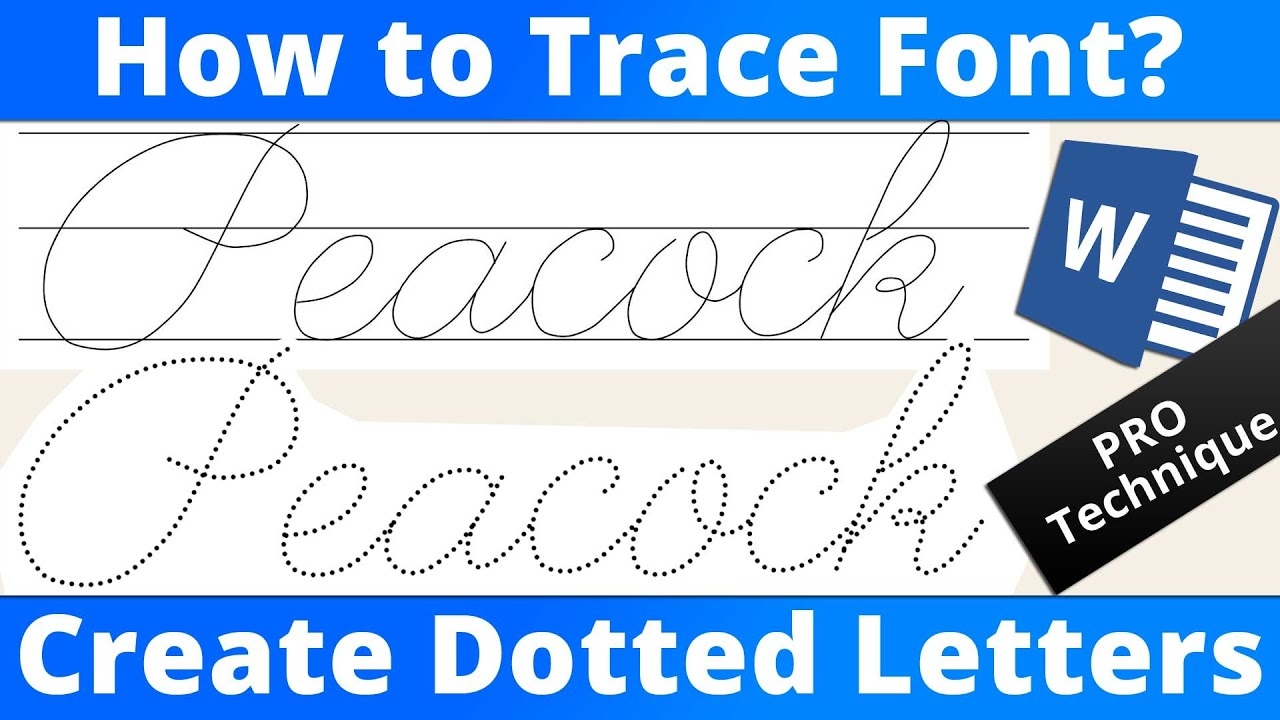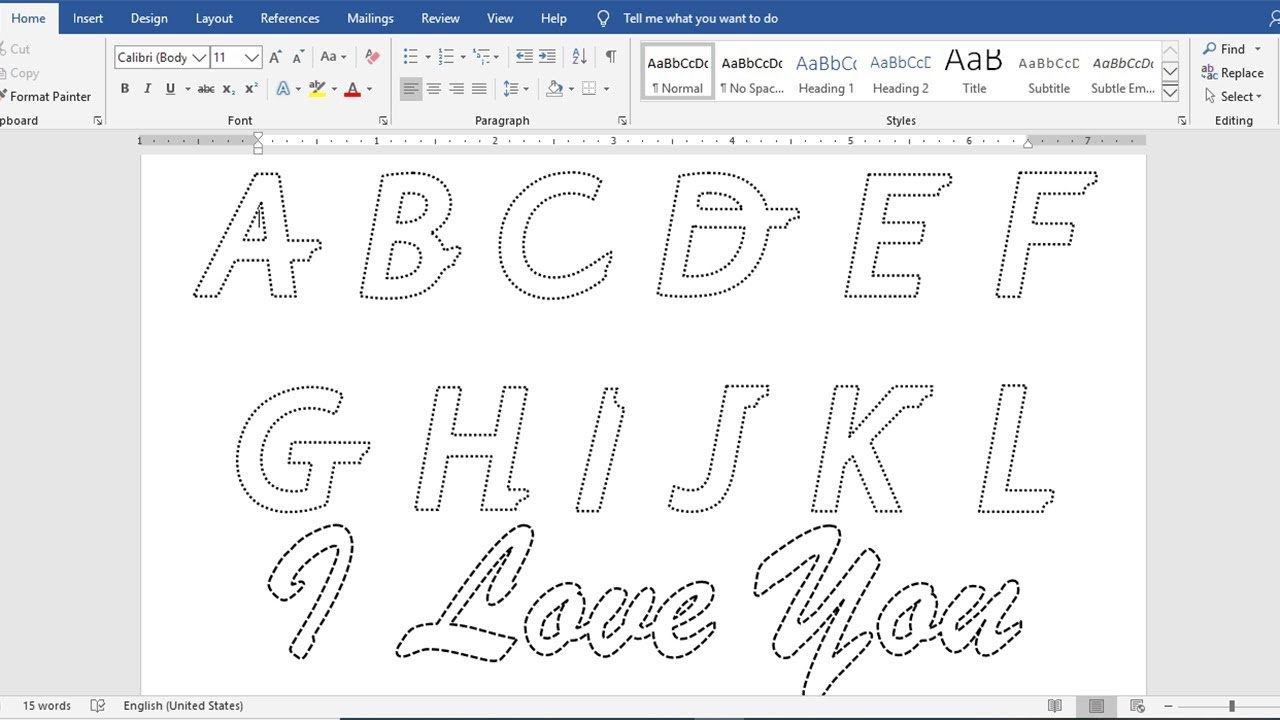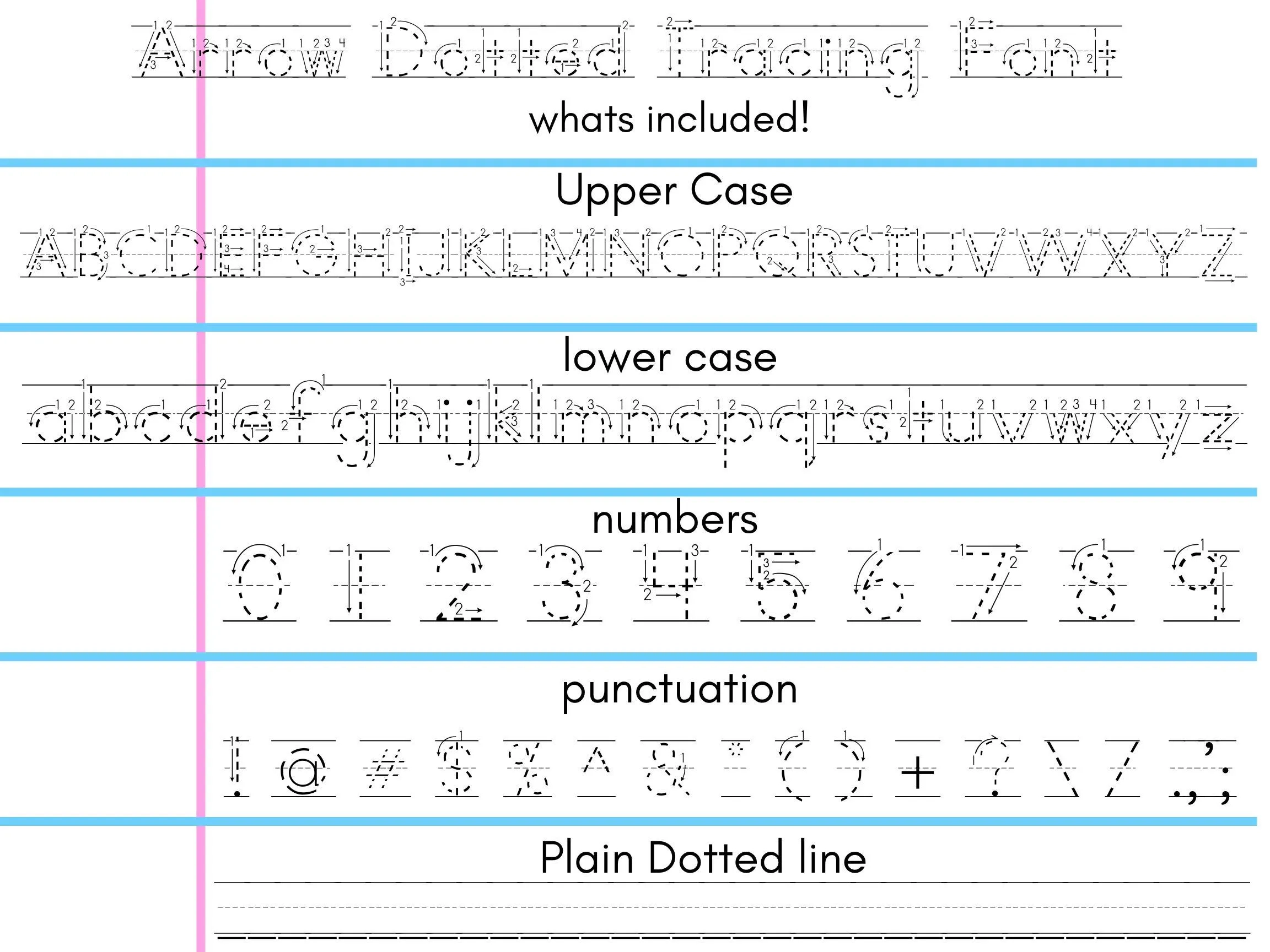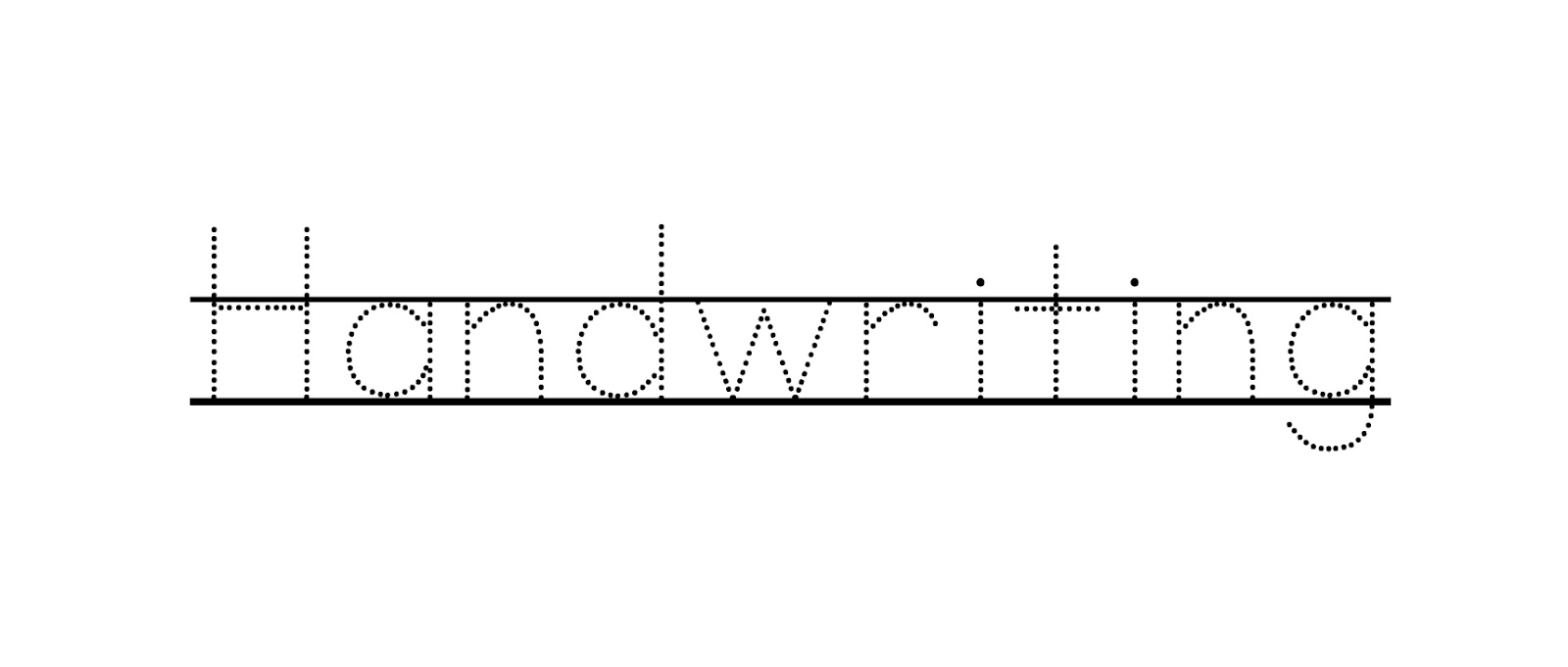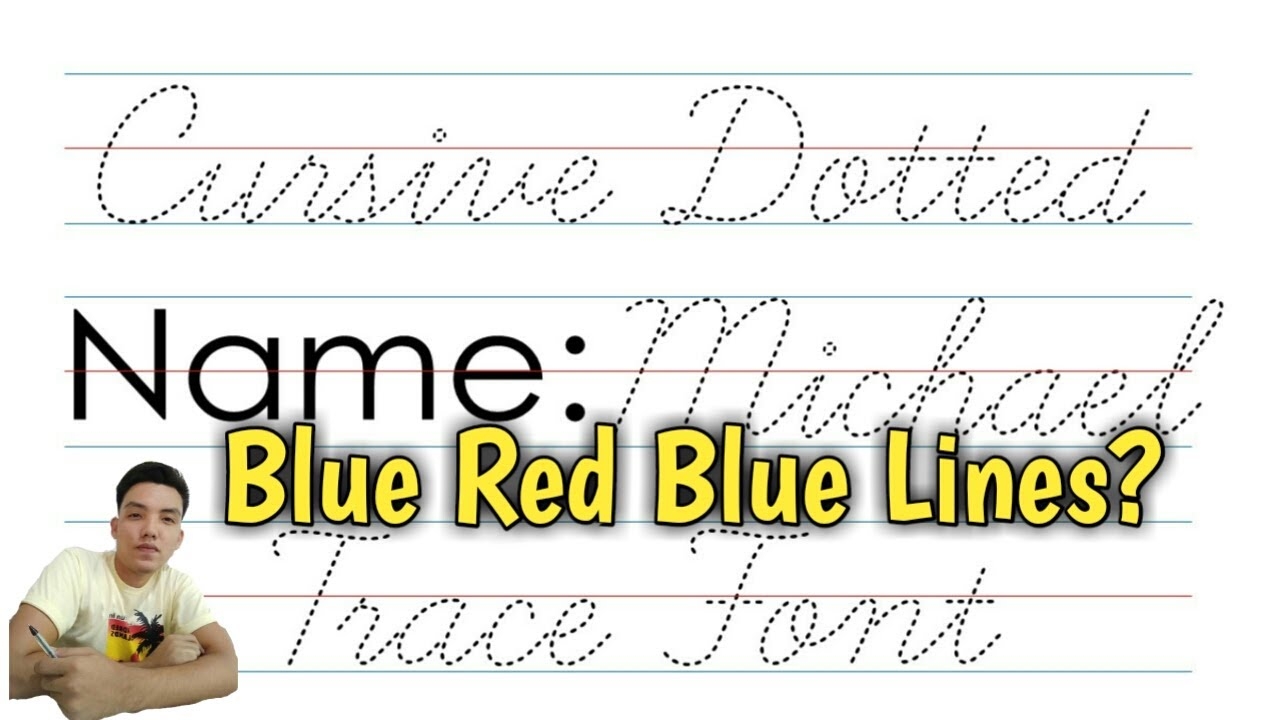
Finding the right tools for teaching kids can be a challenge. One effective method is using a dotted line tracing font, which helps young learners develop their writing skills in a fun way. This approach makes learning engaging and interactive.
Dotted Line Tracing Font
A dotted line tracing font provides a visual guide for children as they practice writing letters and numbers. The dotted lines serve as a roadmap, allowing kids to follow along and gain confidence in their writing abilities. This technique is particularly useful for preschoolers.
Using a dotted line tracing font can also make learning more enjoyable. Kids often respond positively to playful designs and colorful worksheets, which can motivate them to practice more frequently. This engagement is crucial for developing a love for learning.
Additionally, these fonts can be easily integrated into various educational materials. From worksheets to digital apps, the versatility of dotted line tracing fonts allows for creative teaching approaches that cater to different learning styles.
Incorporating a dotted line tracing font into your teaching toolkit can significantly enhance children’s writing skills. By making learning enjoyable and interactive, you set the foundation for their future academic success.